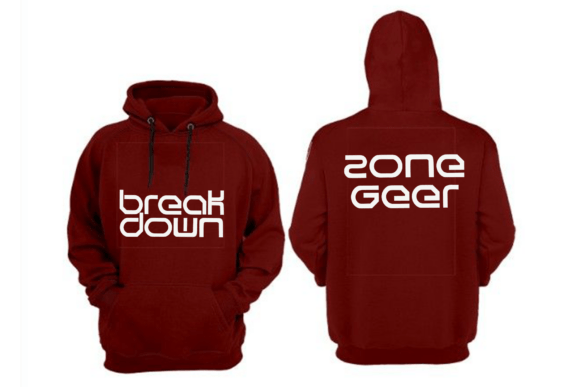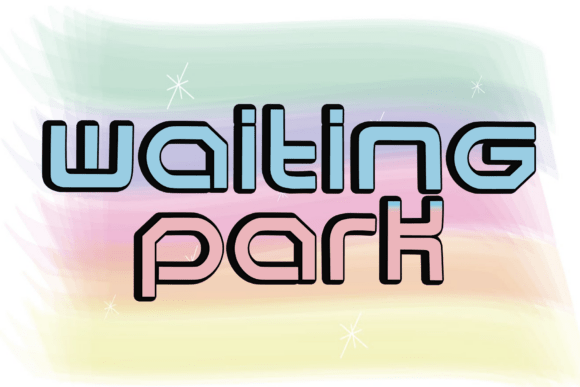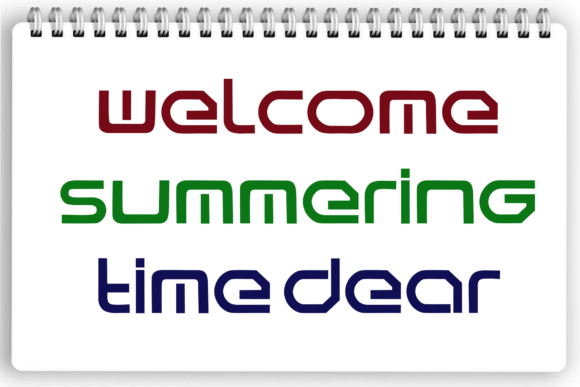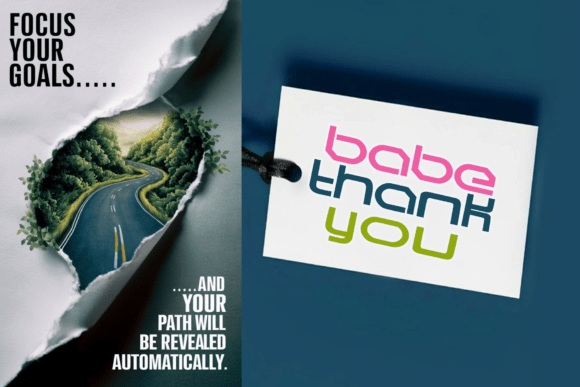
Introduction to Magnetic Font
Have you ever found yourself staring at a blank canvas, trying to conjure up the perfect design for a client or your own creative project? The pressure to create something unique and captivating can be overwhelming. But what if you had the perfect design resource at your fingertips? Enter the Magnetic Font, a sleek and futuristic sans serif font that’s sure to give your designs a modern, digital edge.
This versatile font is perfect for tech branding, science fiction designs, logos, and UI projects that require a clean, minimal style. With its unique angular curves and geometric aesthetic, the Magnetic Font is a valuable addition to any designer’s toolkit.
- Unique, creative design style that adds a touch of sophistication to any project.
- Perfect for use in logos, branding materials, and other design elements where a premium, high-quality font is required.
Honest Review: Magnetic Font
As a designer, I’m always on the lookout for high-quality design resources that can elevate my creative projects. The Magnetic Font is one such resource that caught my attention recently.
- ✨ Clean and modern design aesthetic
- ✨ Supports transparent background, making it perfect for layered designs
- ✨ High quality, with crisp and clear typography
- ⚠️ Limited character set, which may not be suitable for longer text
- ⚠️ Not suitable for use as a primary font for body text, due to its modern design aesthetic
Overall, I’m impressed with the Magnetic Font. It’s a great design resource for adding a touch of modernity to your creative projects. While it may have some limitations, its clean design aesthetic and high-quality typography make it a valuable addition to any designer’s toolkit.
Tips for Getting the Most Out of Magnetic Font
Use the Magnetic Font on a high-quality image with a transparent background to create a professional-looking design. Experiment with different font sizes, colors, and styles to find the best fit for your creative project.
The Magnetic Font is perfect for creating eye-catching headings, titles, and quotes in your design projects. It’s also great for adding a touch of elegance to your presentations and documents.